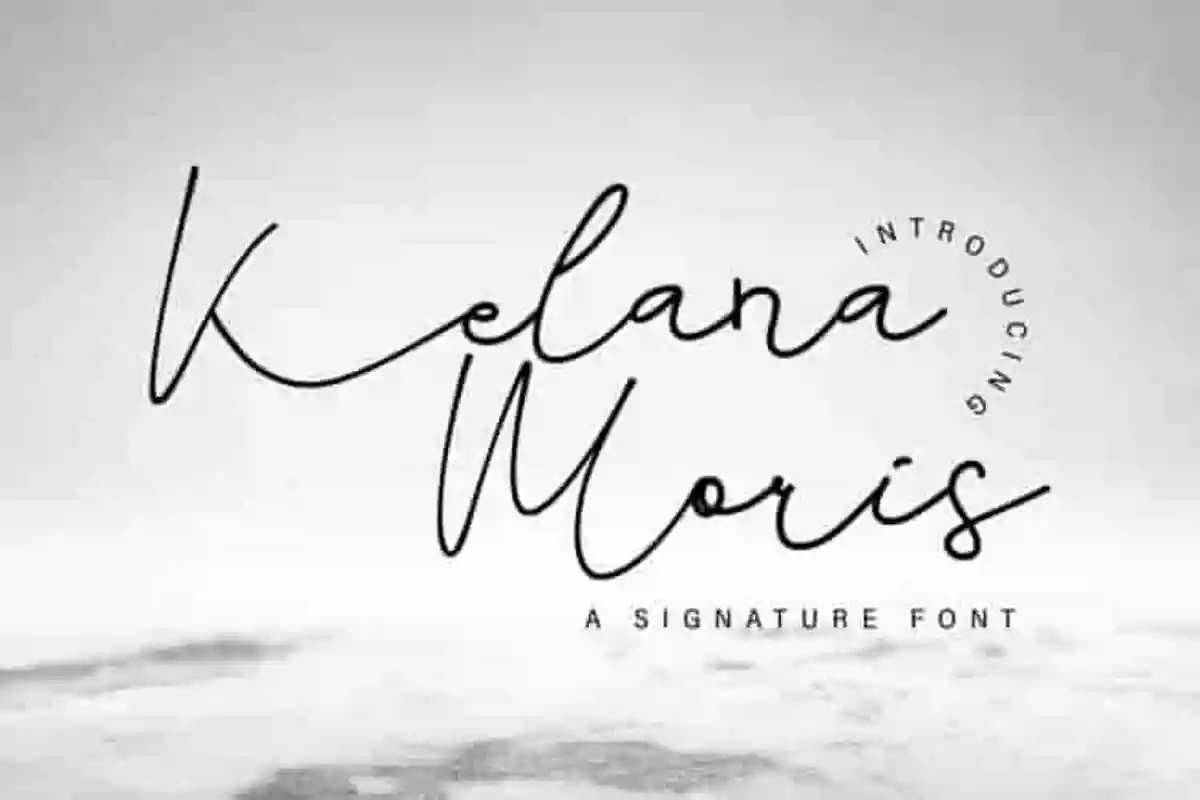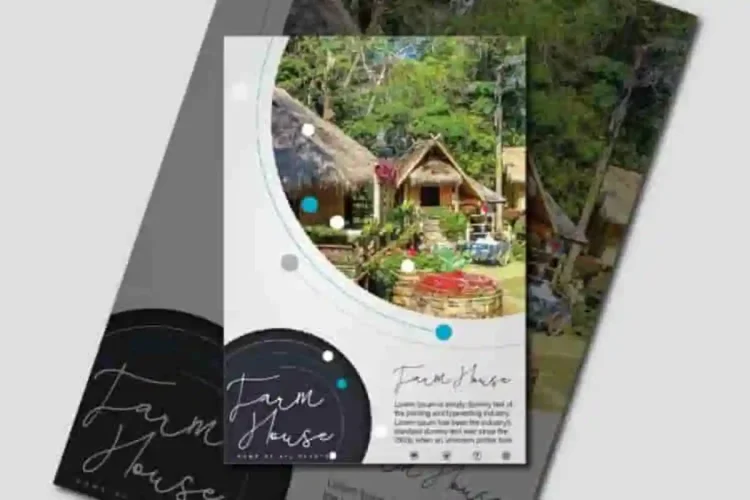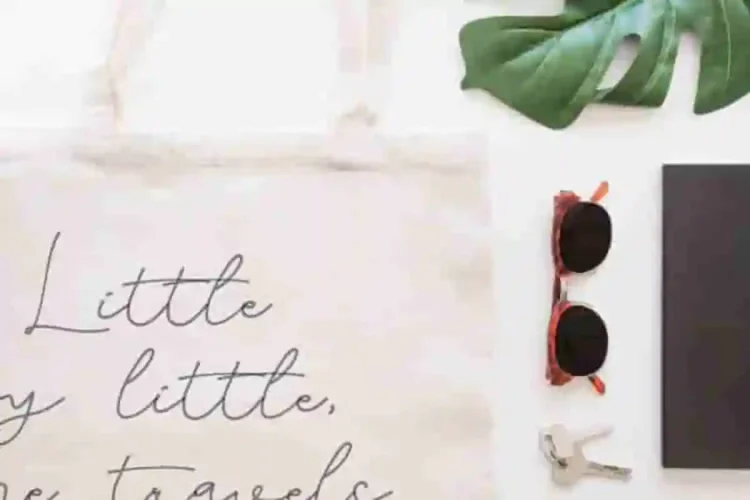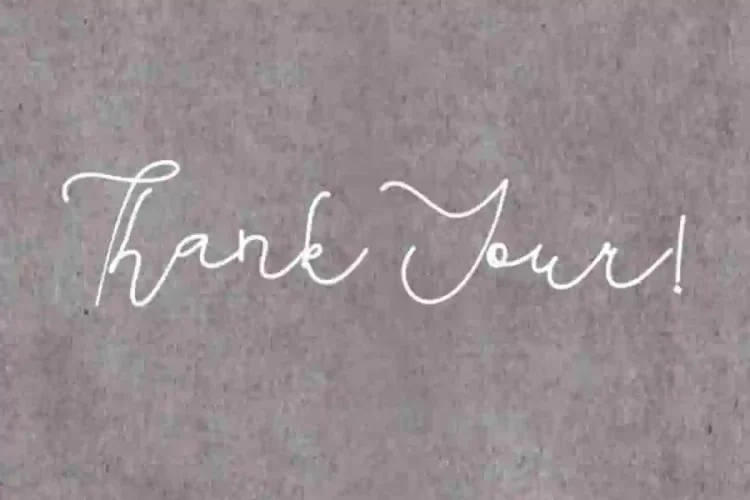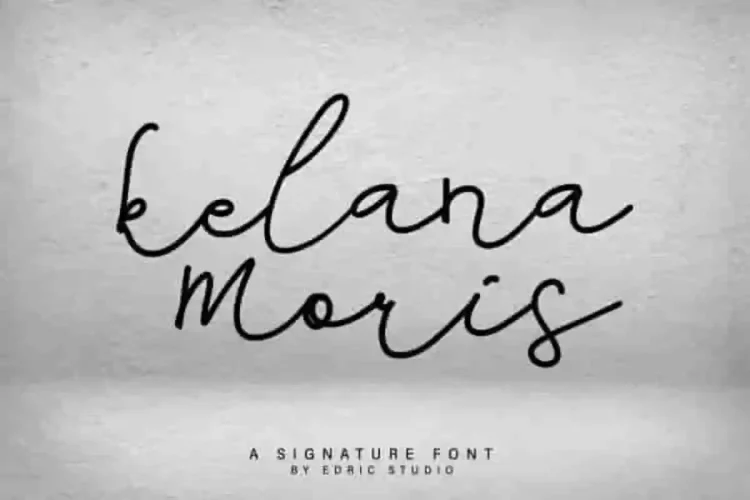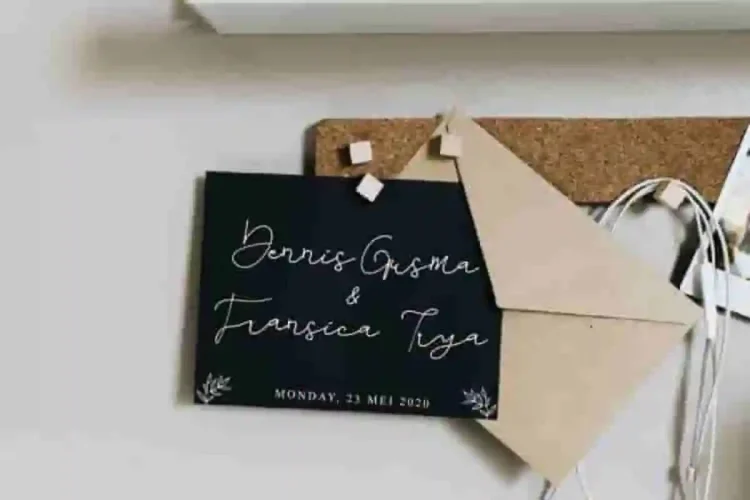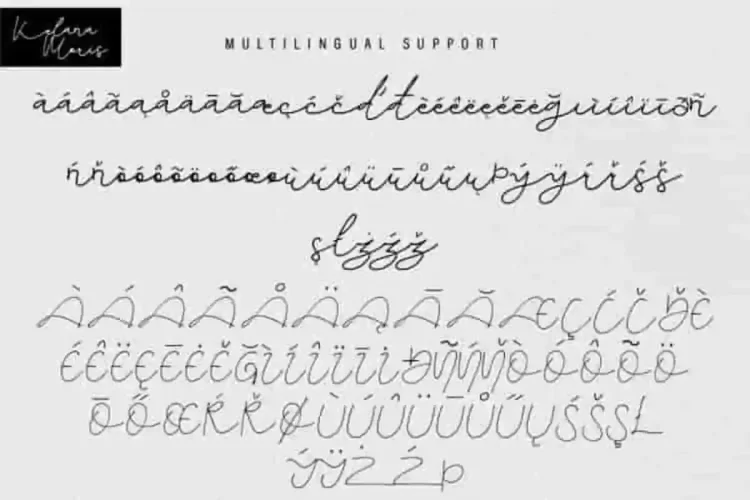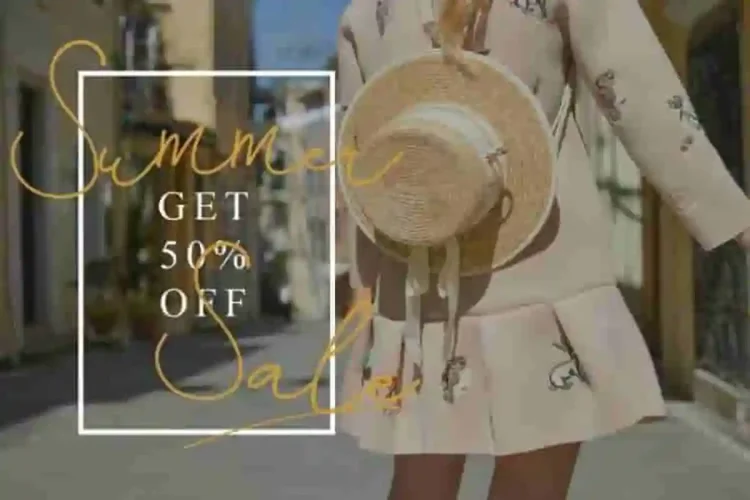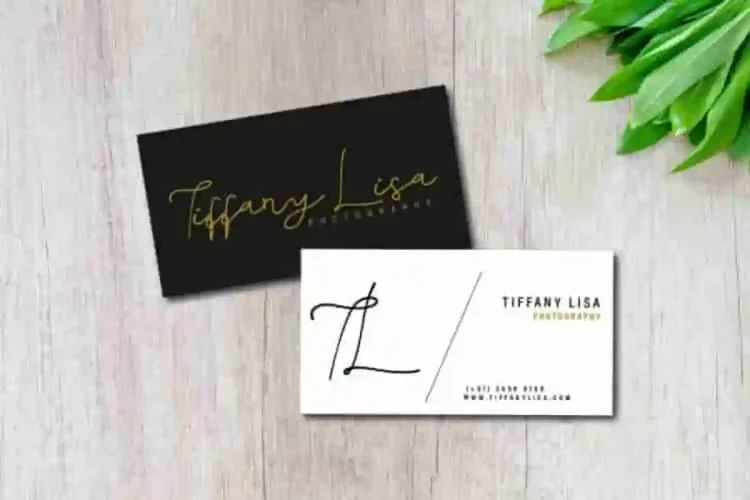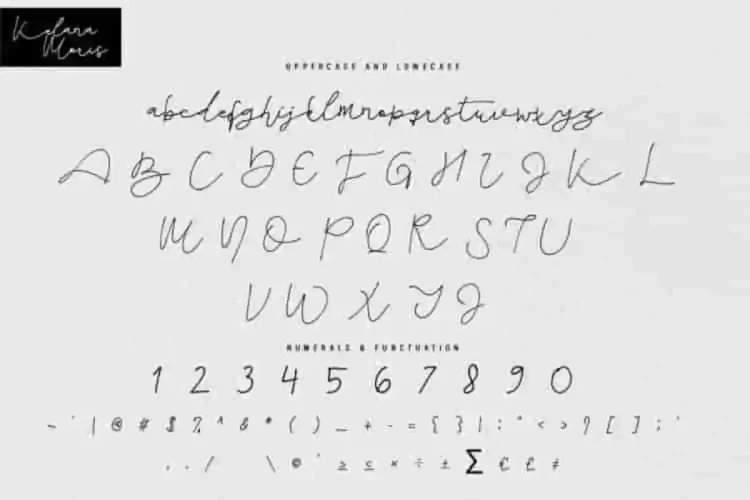
Kelana Moris Calligraphy Font
Introducing our new font  : Kelana Moris Font
This is a calligraphy classic font, handcrafted from our Studio here in, Indonesia. The artists/designers of this beautiful tyeface is Yasri and Suci.
Kelana Moris Calligraphy Font is an elegant handwriting signature script style. This font has a stunning characters set, perfectly managed with well spaced and kerning.
Kelana Moris Calligraphy Font will be great for any projects including : branding, logo, stationery, business card, signage, flyer, brochure etc. Almost all industries will be match for this typeface: wedding, events, real estate, architect, law firm, florist, gardening, makeup artist, travel, hotel, musician etc.